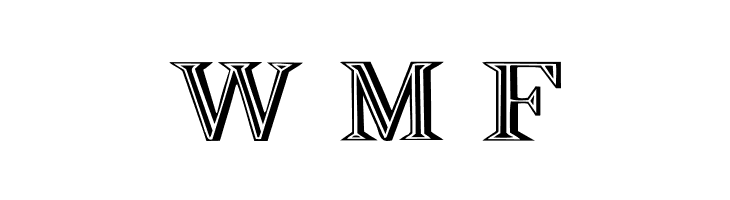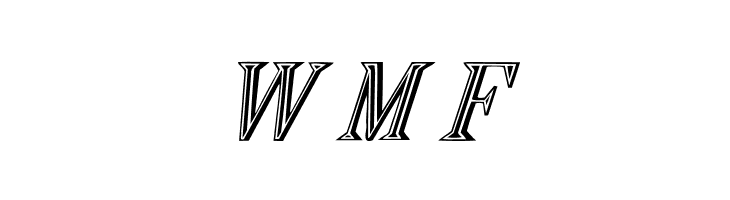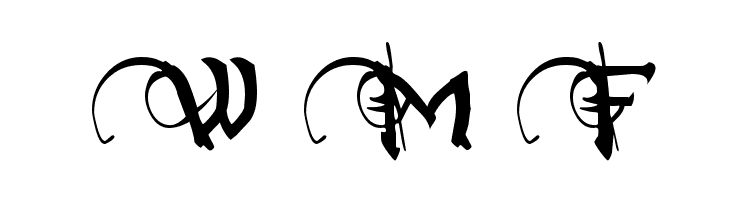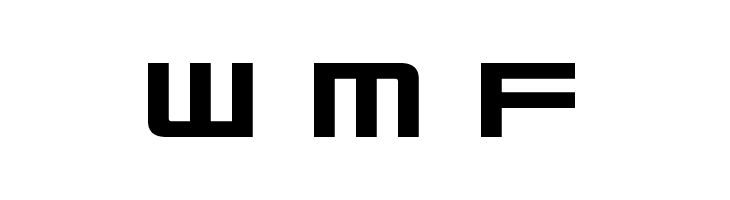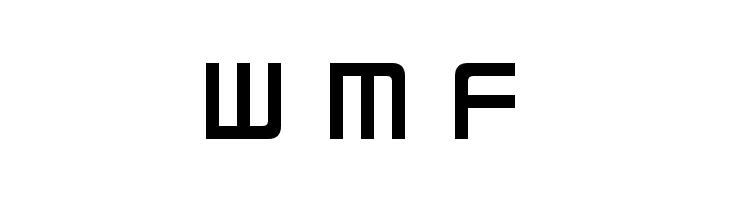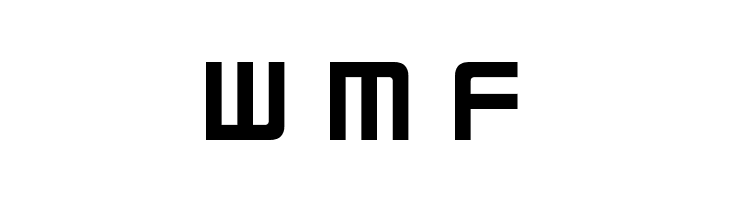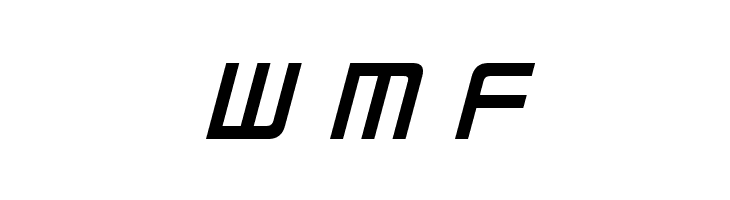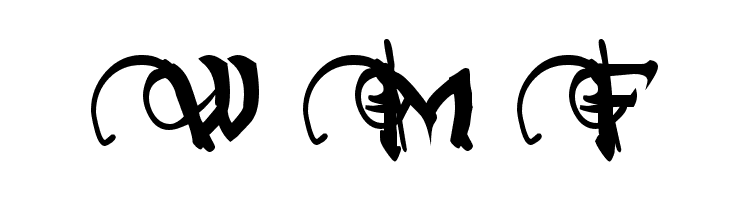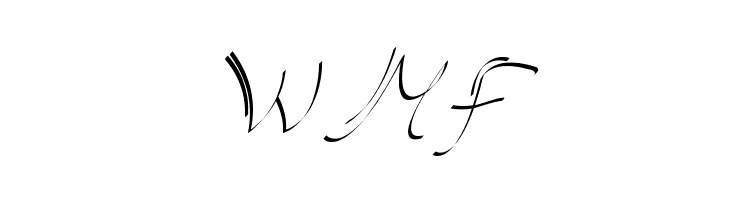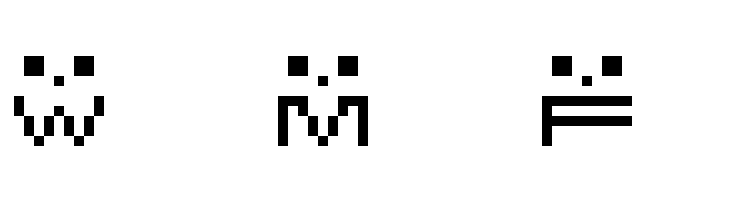
A bold, brushstroke font with a rebellious, artistic flair.
A pixelated, blocky font with a retro digital aesthetic.
A classic serif font with bold strokes and elegant curves, ideal for formal use.
A classic serif font with bold strokes and elegant curves.
A bold, decorative font with an artistic, hand-drawn style.
A bold, expressive brush-style font with dynamic, textured strokes.
A bold, geometric font with a modern and impactful design.
A modern, sleek font with elongated, narrow characters and a minimalist design.
An abstract, collage-style decorative font with high visual complexity.
A modern, italic font with bold, condensed characters and a dynamic style.
A modern, oblique font with a bold, geometric style and tight spacing.
A bold, illustrative font depicting the NATO phonetic alphabet with unique graphics.
A bold, decorative font with a three-dimensional outline effect.
A bold, decorative font with outlined characters and a vintage flair.
An elegant serif font with an italic slant and high contrast strokes.
A sharp, gothic-inspired font with dramatic serifs and a dark, edgy aesthetic.
A bold, geometric font with a modern and blocky design.
A bold, italicized font with a modern, dynamic style.
A modern, italicized font with a sleek, geometric design.
A futuristic, geometric font with bold, angular shapes and clean lines.
An elegant script font with flowing, interconnected letterforms and high contrast strokes.
A playful and whimsical font with decorative elements and clean lines.
A modern, geometric font with clean lines and a structured appearance.
A modern, geometric font with bold, clean lines and a cohesive design.
A bold, gothic-inspired font with sharp, angular strokes and intricate detailing.
A bold, dramatic font with a medieval or fantasy theme.
A bold, italicized font with sharp, angular strokes and dynamic curves.
A dynamic, italicized font with a calligraphic flair and expressive strokes.